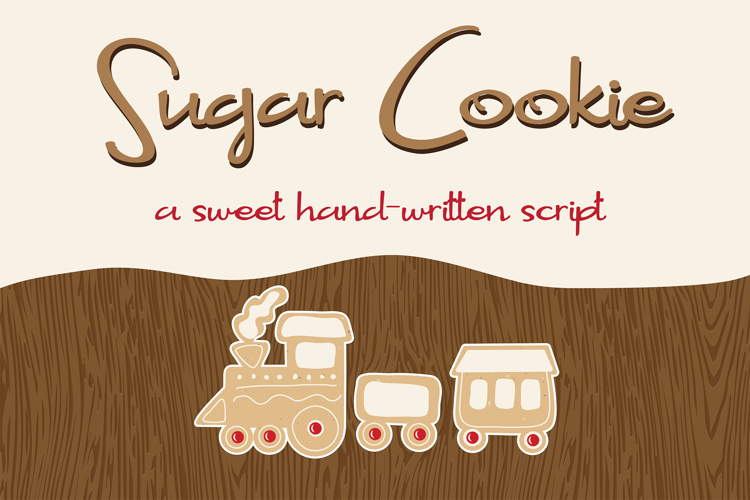
Sugar Cookie Font Family
This hand-crafted font is a whimsical, hand-written script with a very youthful look and fee and an uppercase that drops below the baseline.